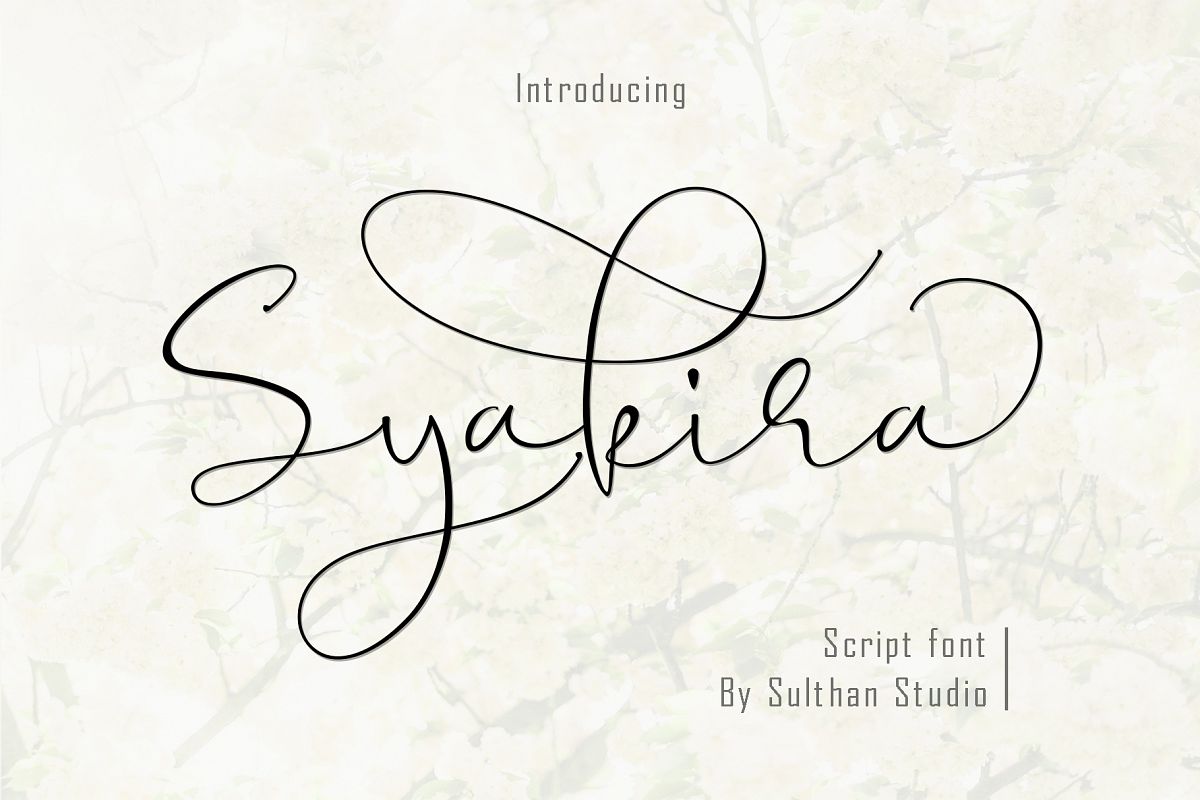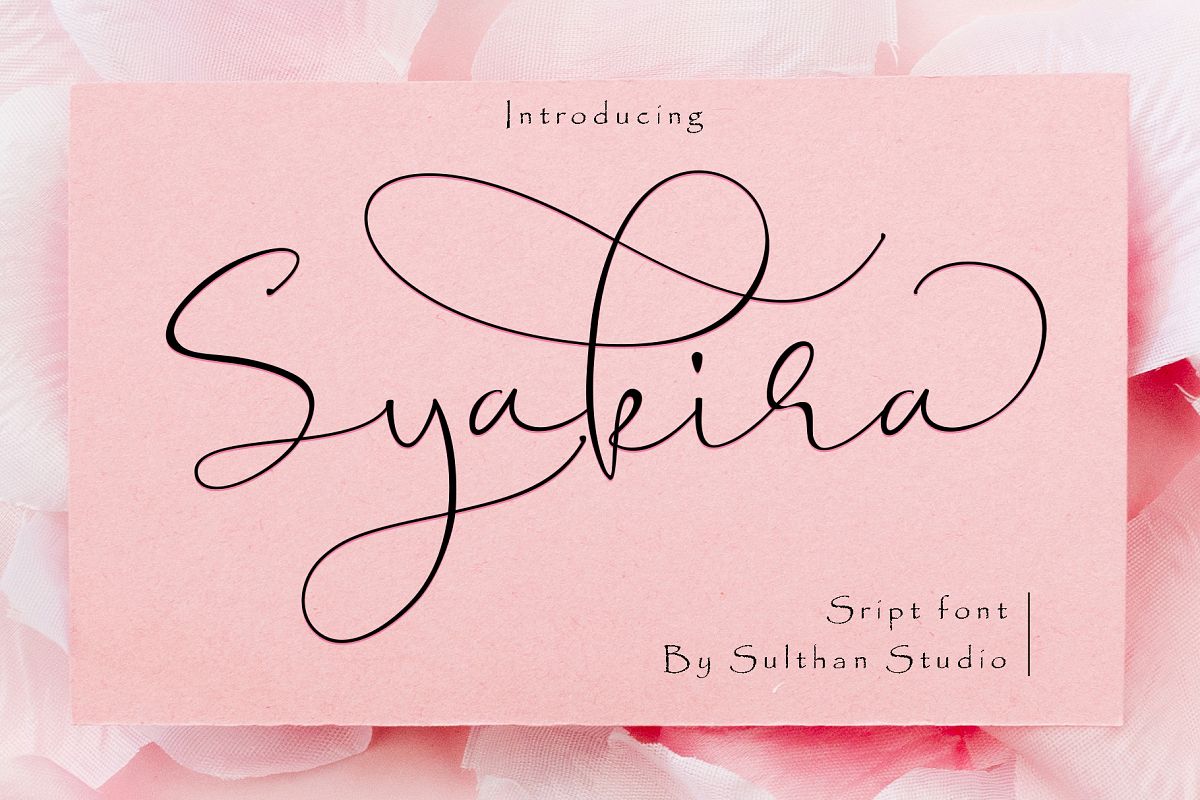
Syakira Script has a romantic and modern calligraphy, ready to give your design a fresh and fabulous Style.Syakira Script comes as a single font file packed full of great features and cute.Perfect for weddings, branding and romantic invitations and also suitable for various purposes such as digital lettering, headings, logos, wedding invitations, t-shirts, letterheads, signage’s and much more!.Files included: